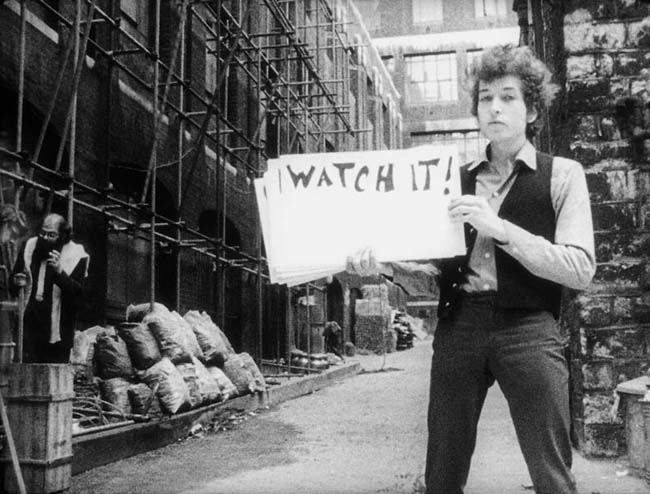
Entertaining.
Bob Dylan Does Hand LEttering
Now that made my day...Awesome Thanks.
Thanks for this video clip, Bill. It's always great to see the inexhaustible kinds of expression that can come through typography - especially hand lettered words. The artist, Leandro Senna, definitely had fun with this project and is clearly talented. It's refreshing to see no sterile computer fonts used!
But leave it to me to comment further.
I'm a huge fan of both Bob Dylan and Jimi Hendrix, and as much as Hendrix's haunting guitar in "All Along the Watchtower" sends chills down my spine, I think Dylan's version is superior, simply because his barren understated rendition supports the song as a mysterious ballad which leaves you hanging.
Similarly, I prefer Dylan's naive home made cards in his 1965 video of Subterranean Homesick Blues to the whimsical hand lettering in Leandro's creative video clip. Just seems like it fits the raw, rebellious throw-away nature of the song. And isn't that part of what we try to do as sign-artists: interpret the subject matter through our letter forms?
OK, so call me a party-pooper! I can take it.
I much prefer Dylan's original too. The thing I like about Leandro's video is that he put forth effort into each of the cards. I think I read somewhere that Bob only drew 6 of the cards in the original video. Of course it's obvious that the original's focus wasn't on hand lettering or creative sign writing.
Marvin.... you're a party-pooper!
Well you asked me!
William Blake:
Well, I ain't askin' again.
Bill,
Right you are about Leandro's work and I felt kind of like a hypocrite to criticize it. I mean I actually like the lettering he did and - do I have something better to show? And just as Dylan's cards (drawn by him, Donovan, Allen Ginsberg & I think someone else) weren't supposed to be about creative hand lettering, so Leandro's video is more about being creative with word-forms and not necessarily enhancing the song.
But I still like the original better. I stand by my party-pooping.
All right, forget it.
Okay, just forget it!
That's a he.1 of a way
to treat a vet, man.
You're an animal dr?